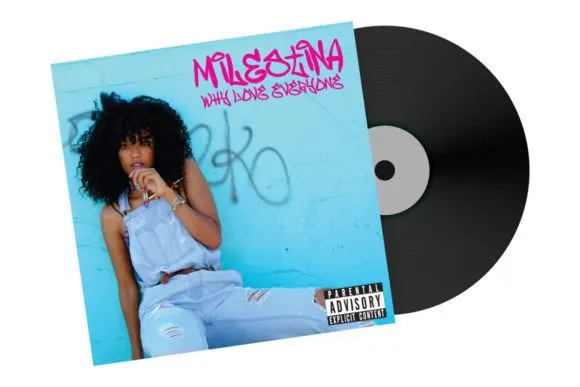
Free Wofline Graffiti Font
Wofline Graffiti Font is a presentation textual style propelled by regular road workmanship calligraphy style or spray painting tag, reasonable for your plan connected with it.
Additionally appropriate for motion pictures, narratives, films, logos, banners, games, book covers, titles, Wofline Graffiti Font, and a lot more tasks. Add this textual style to your inventive thoughts and notice how it will make them stick out!